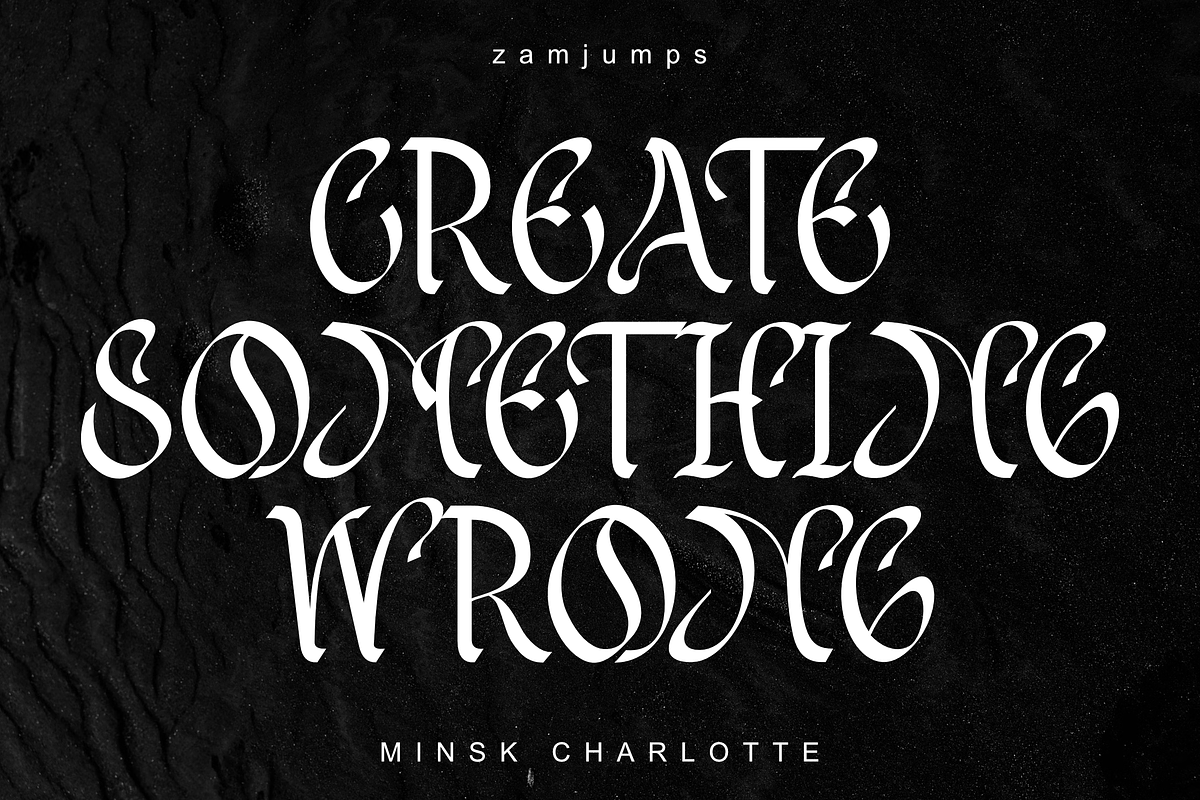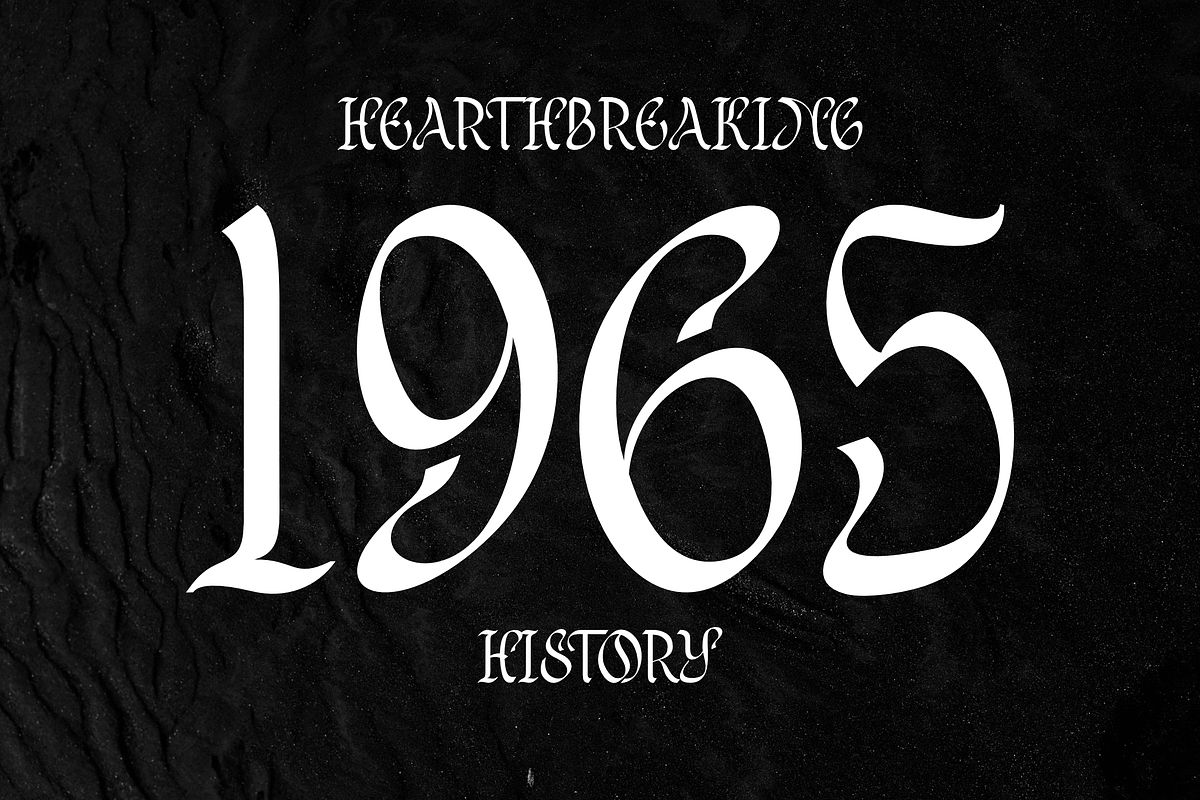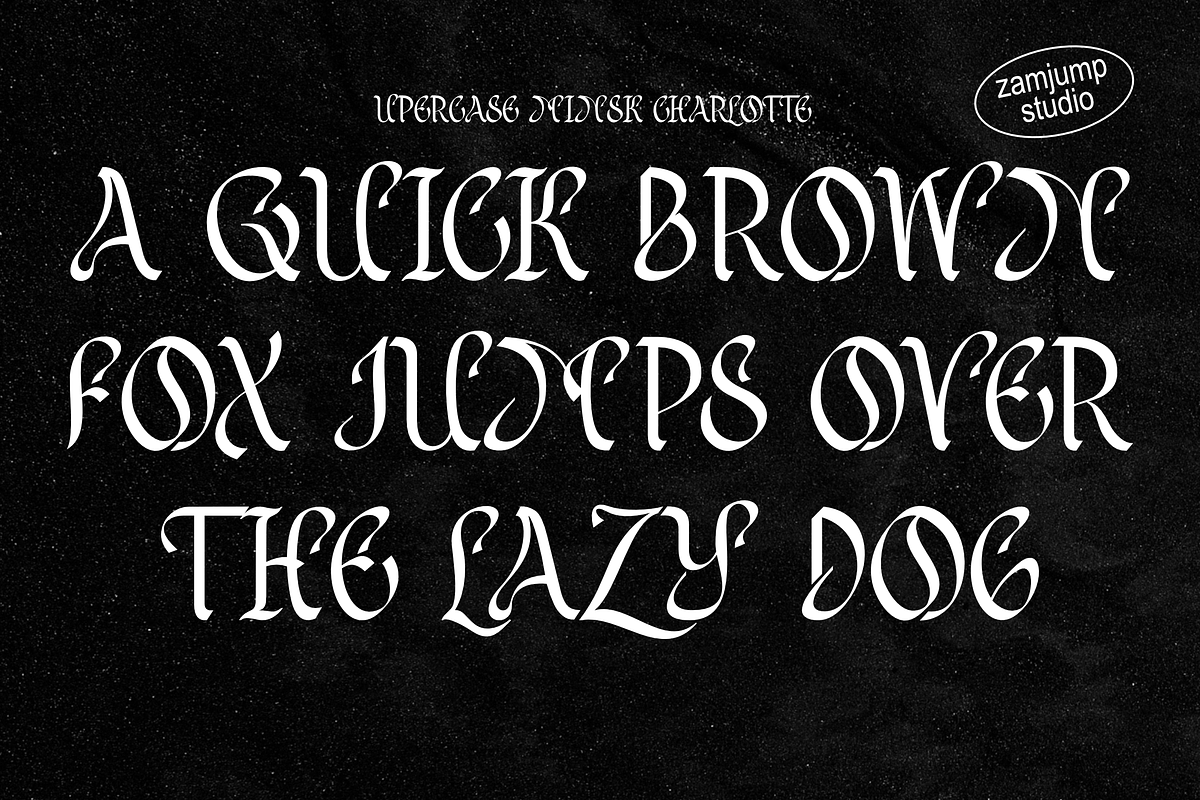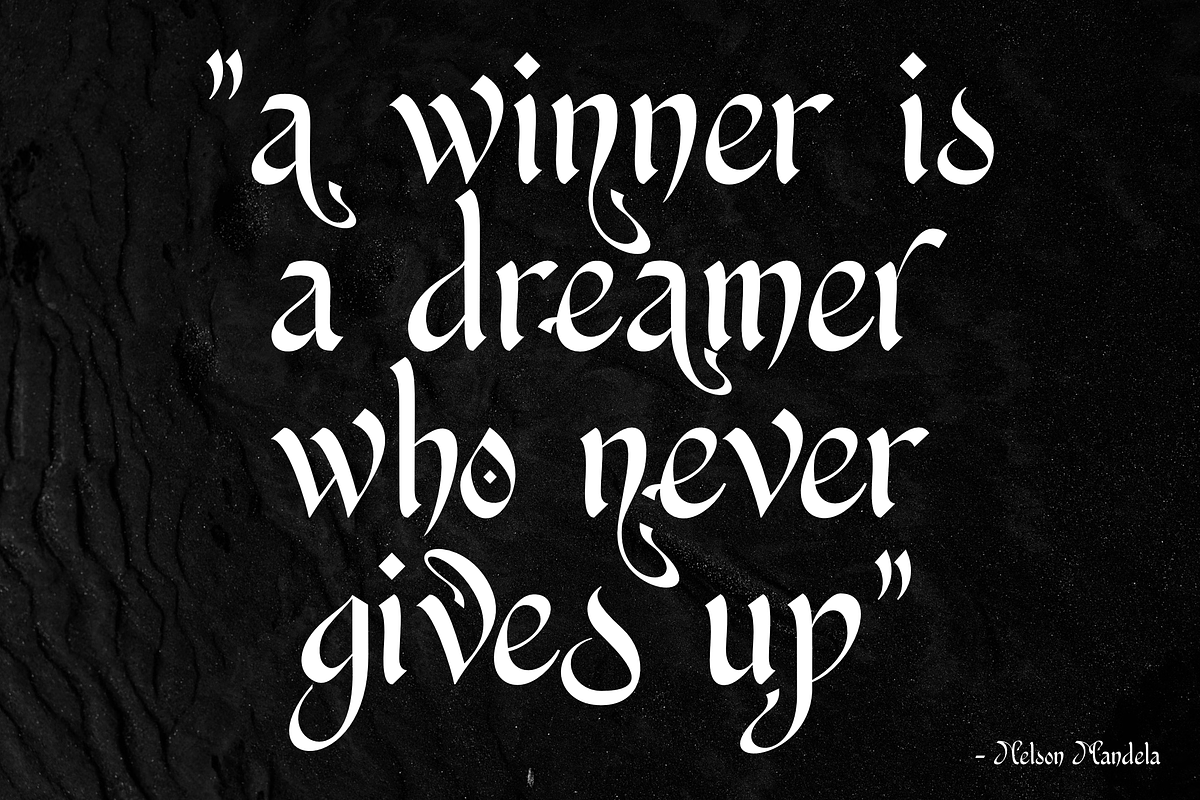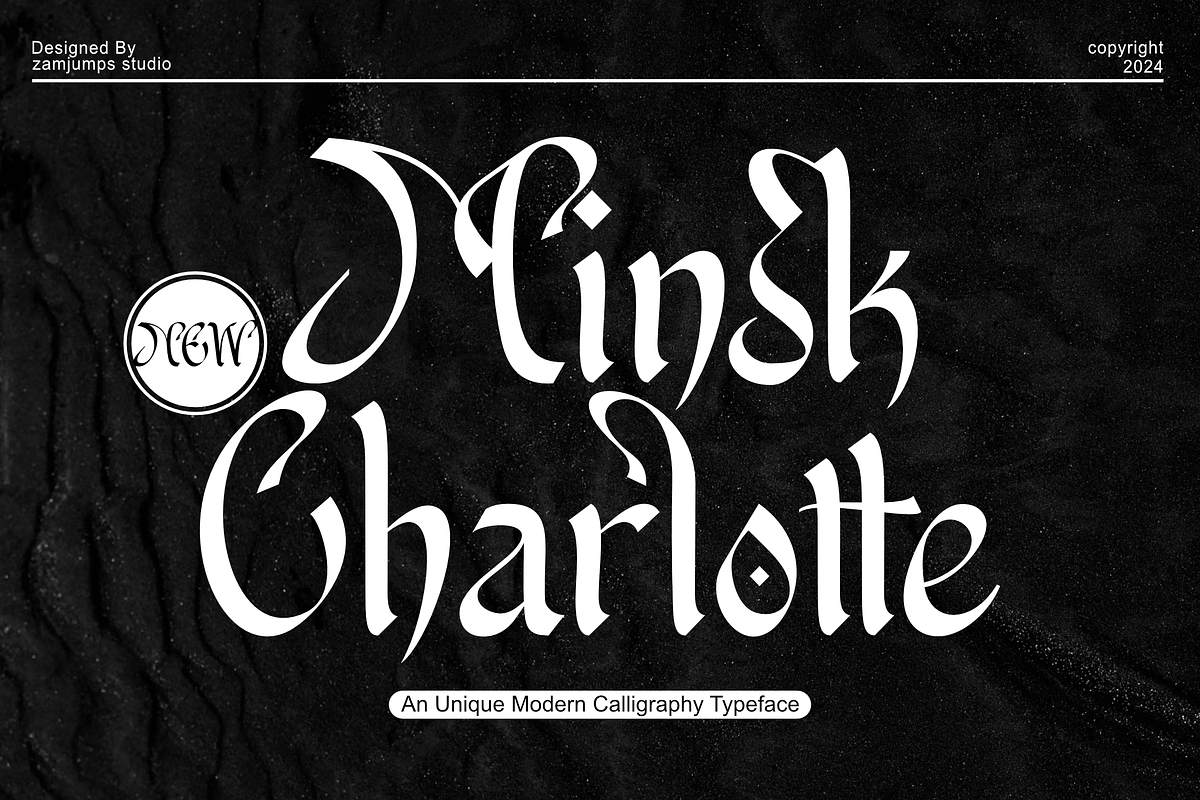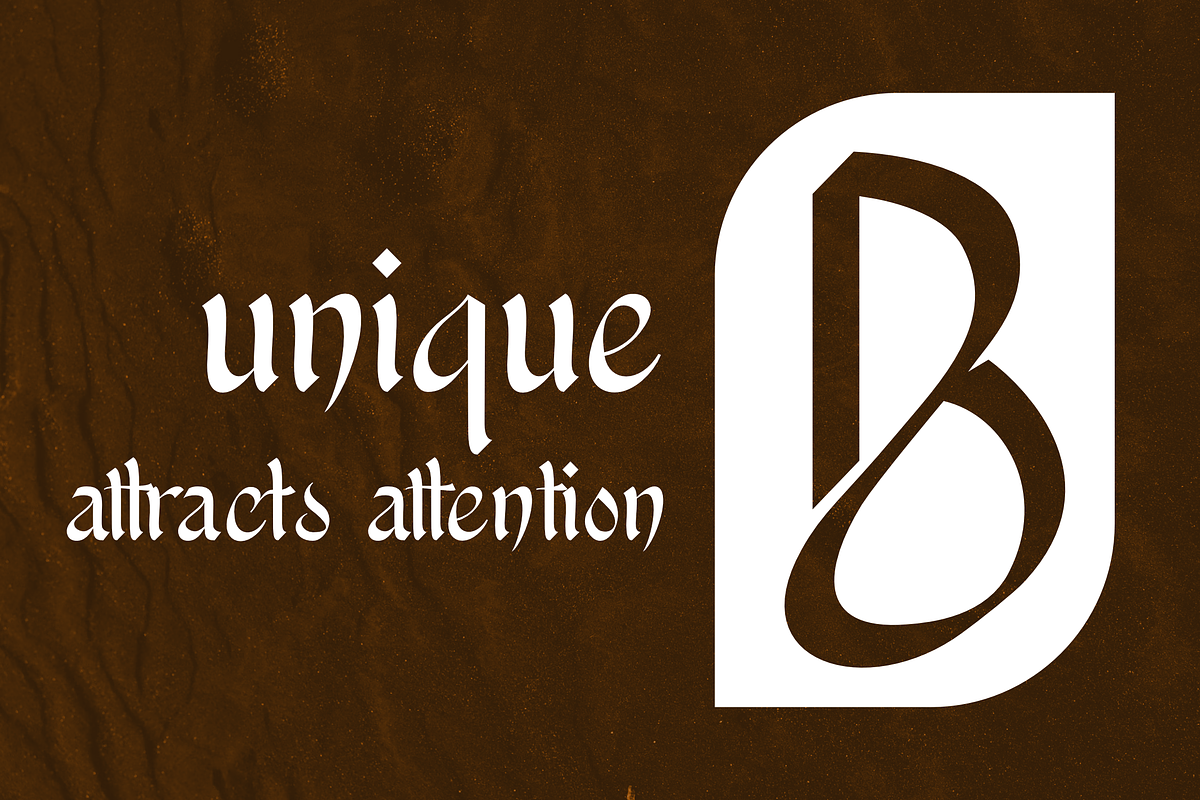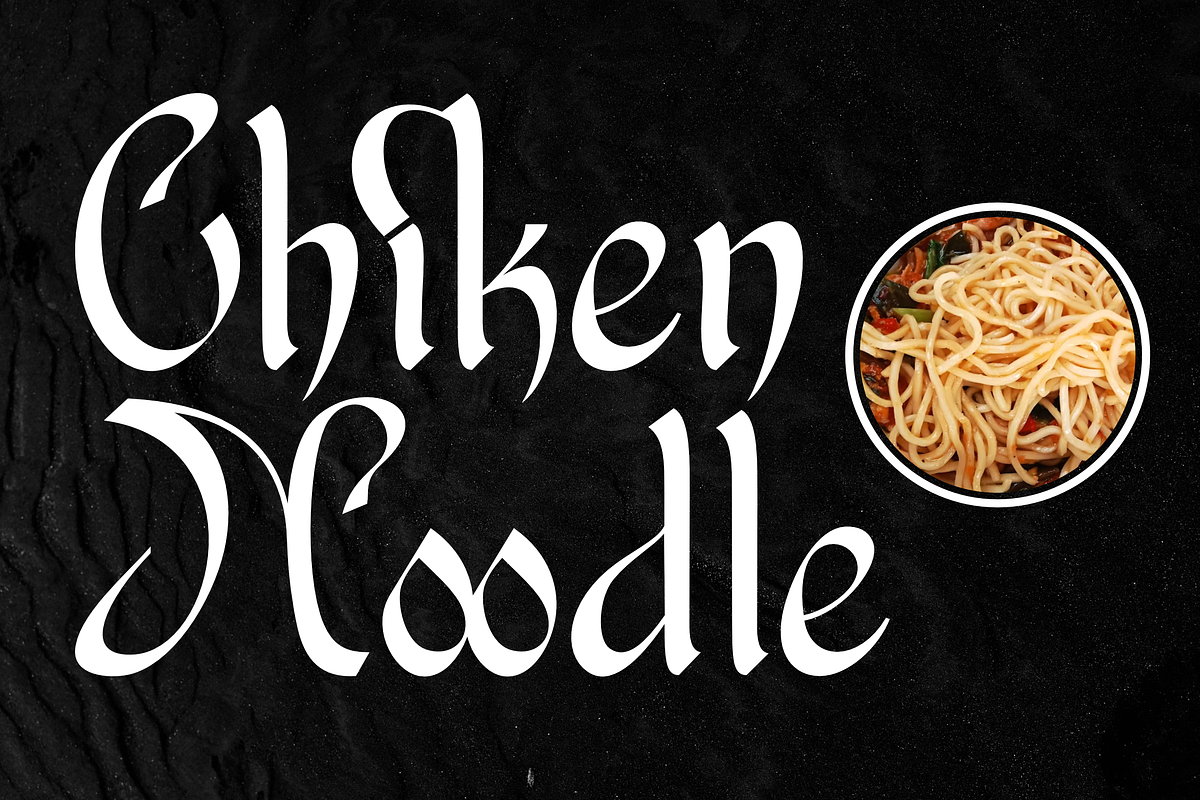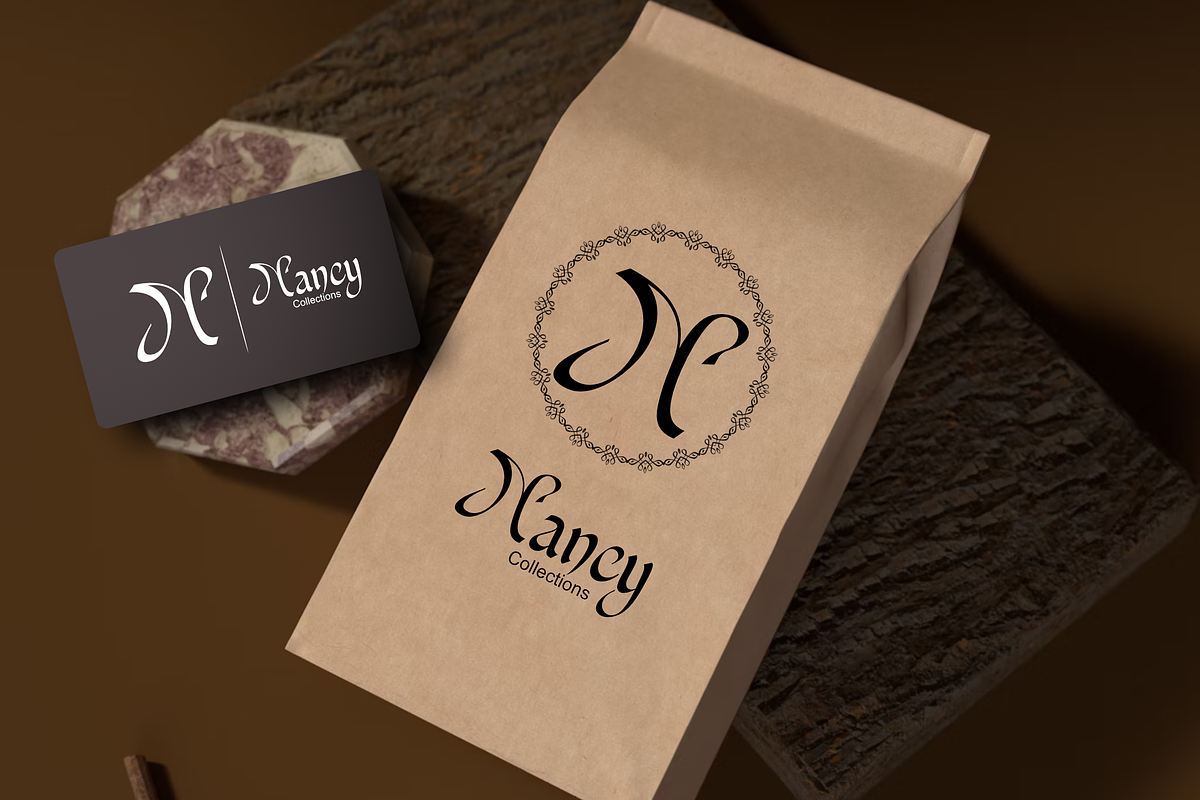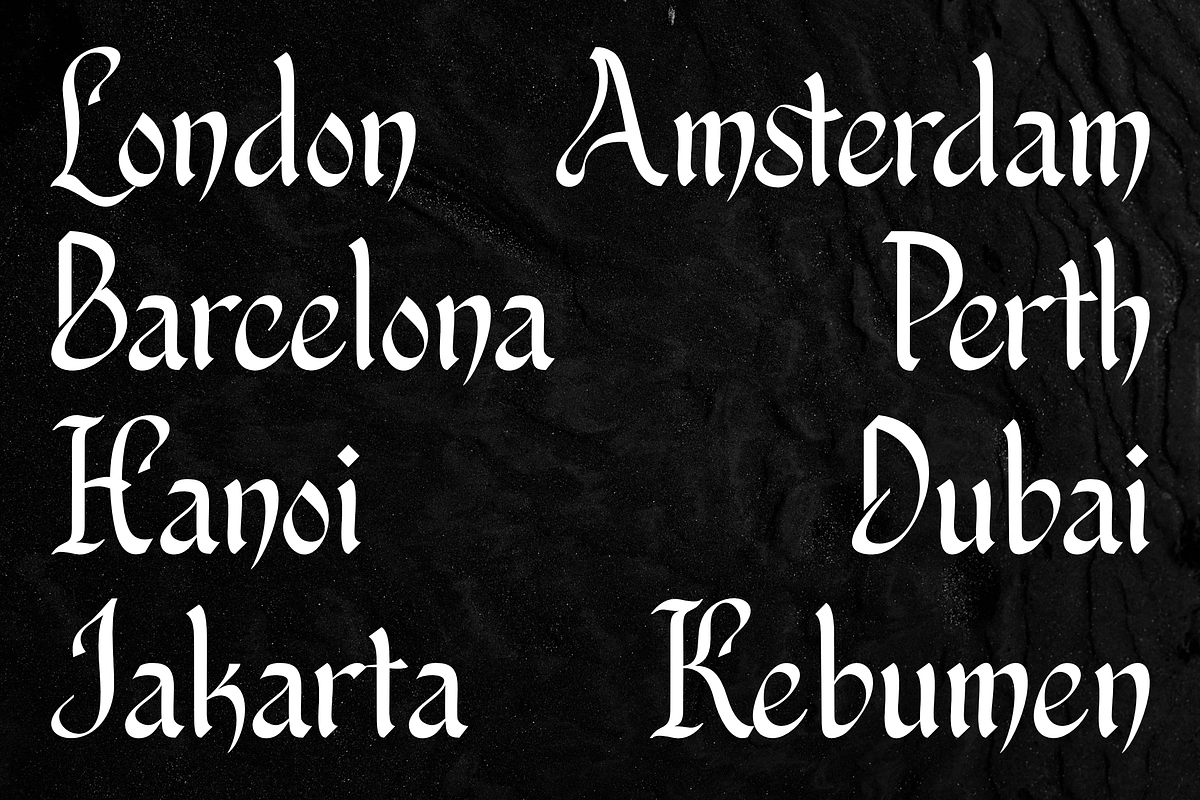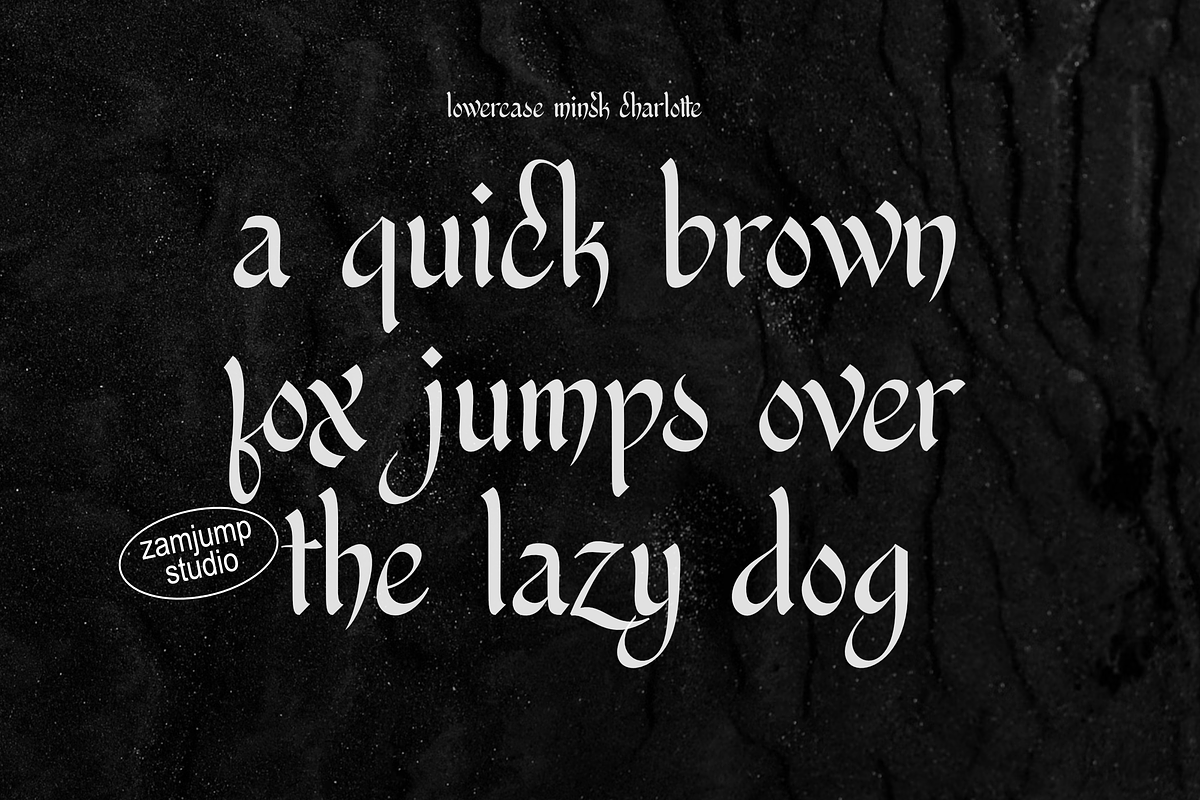
Minsk Charlotte - Unique Calligraphy
Minsk Charlotte, a distinctive modern calligraphy font that stands out with its elegant, handcrafted strokes. Created with a copperplate pen, each letter is meticulously designed to capture the perfect blend of fluidity and precision. The careful technique employed in crafting this font ensures a harmonious and unique character, making it ideal for a wide range of applications. Minsk Charlotte excels in logo branding, title writing, advertising, social media, and book typography. Its sophisticated design brings a touch of refined artistry to any project, effortlessly enhancing visual appeal and making a memorable impression. Whether you’re looking to elevate your brand identity or add a touch of elegance to your content, Minsk Charlotte offers a perfect balance of modern style and classic craftsmanship.